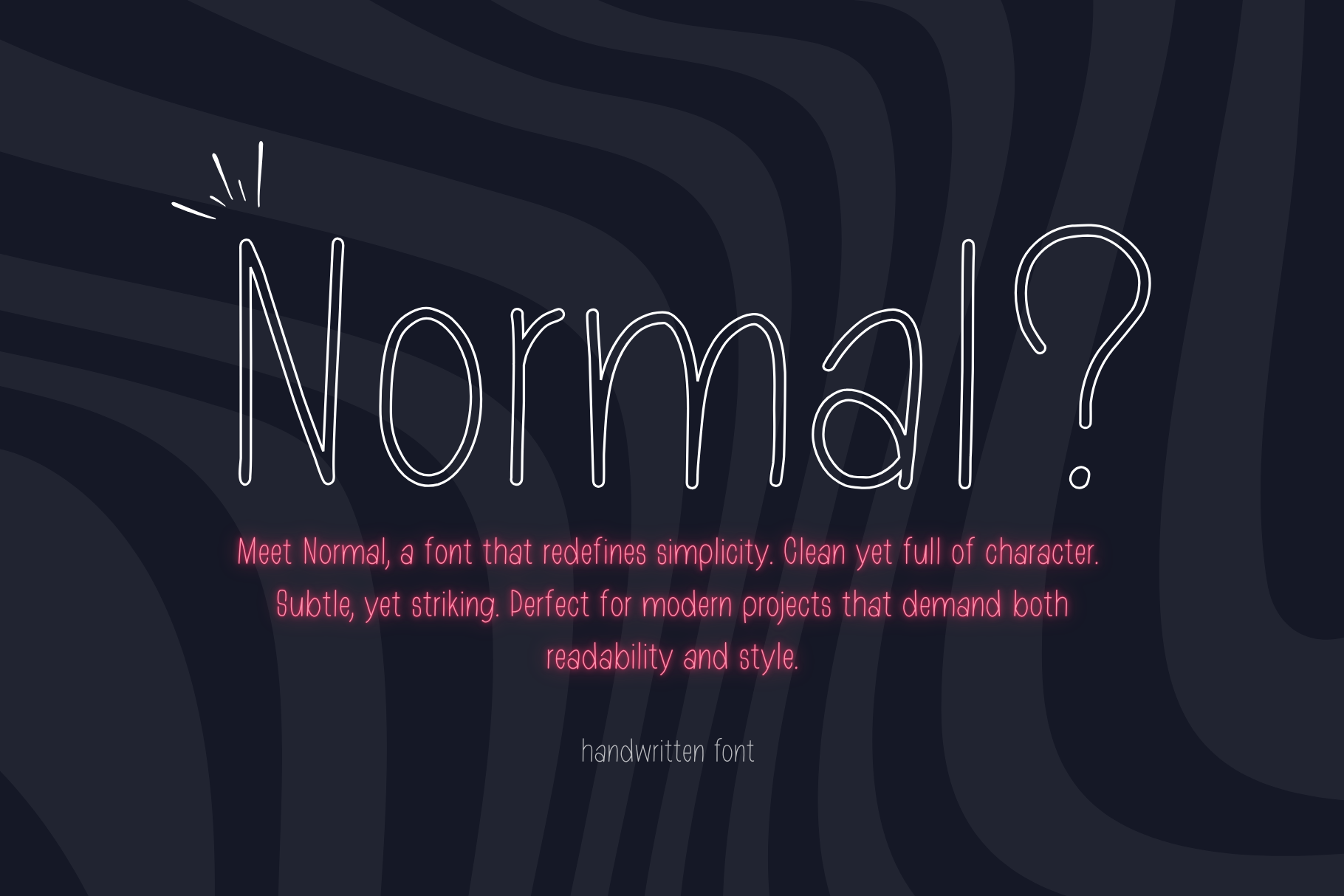
Normal Handwritten Clean Font
Normal is a handwritten font that brings authenticity to any project. Its natural, flowing lines mimic real handwriting, giving text a personal and friendly character.
Normal is perfect for branding, social media, posters, invitations, book covers, and anywhere a unique, authentic touch is needed. It is also great for logos, stickers, clothing, t-shirts, and other designs that require a stylish, handwritten accent.